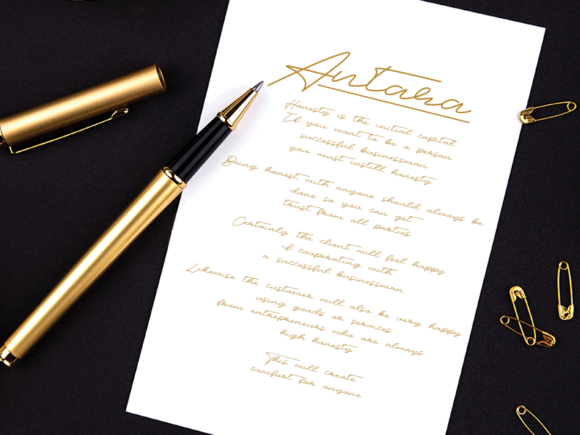
Antara Font
About Antara Font
Antara simplifies elegance into one truly outstanding handwritten font. It maintains its classy calligraphic influences while feeling contemporary and fresh.